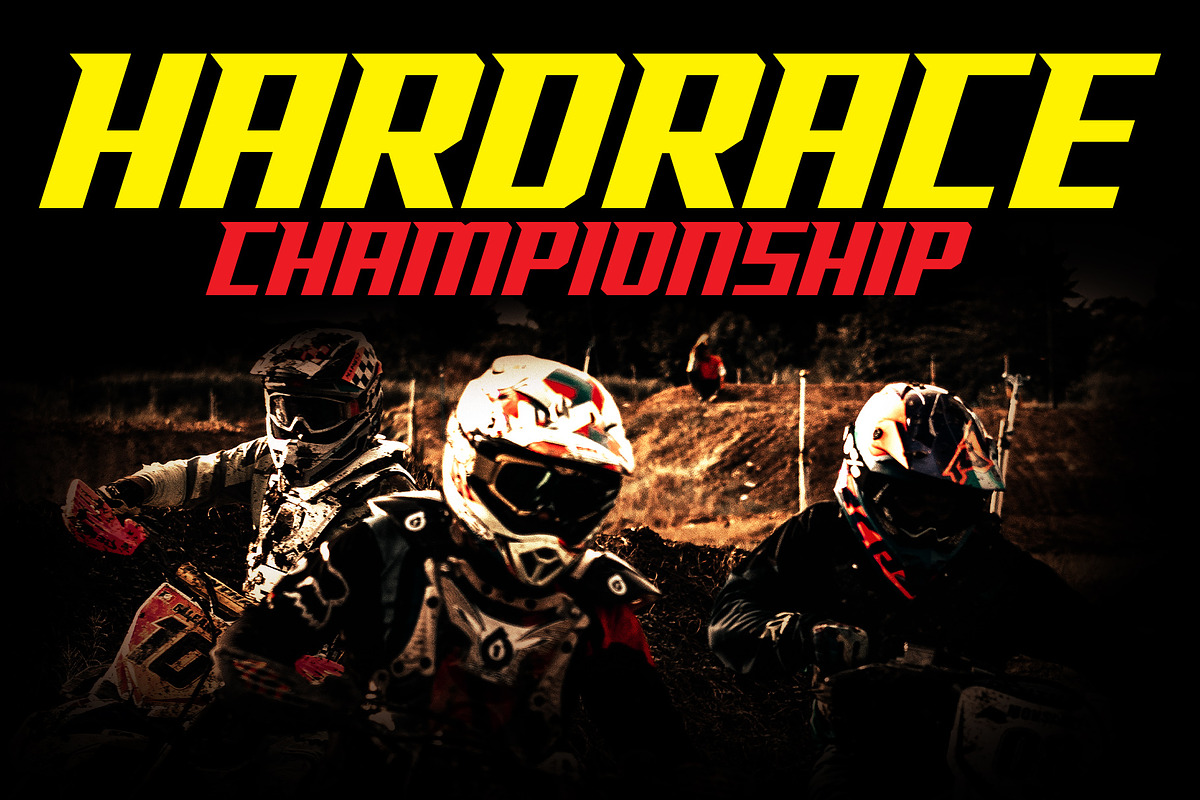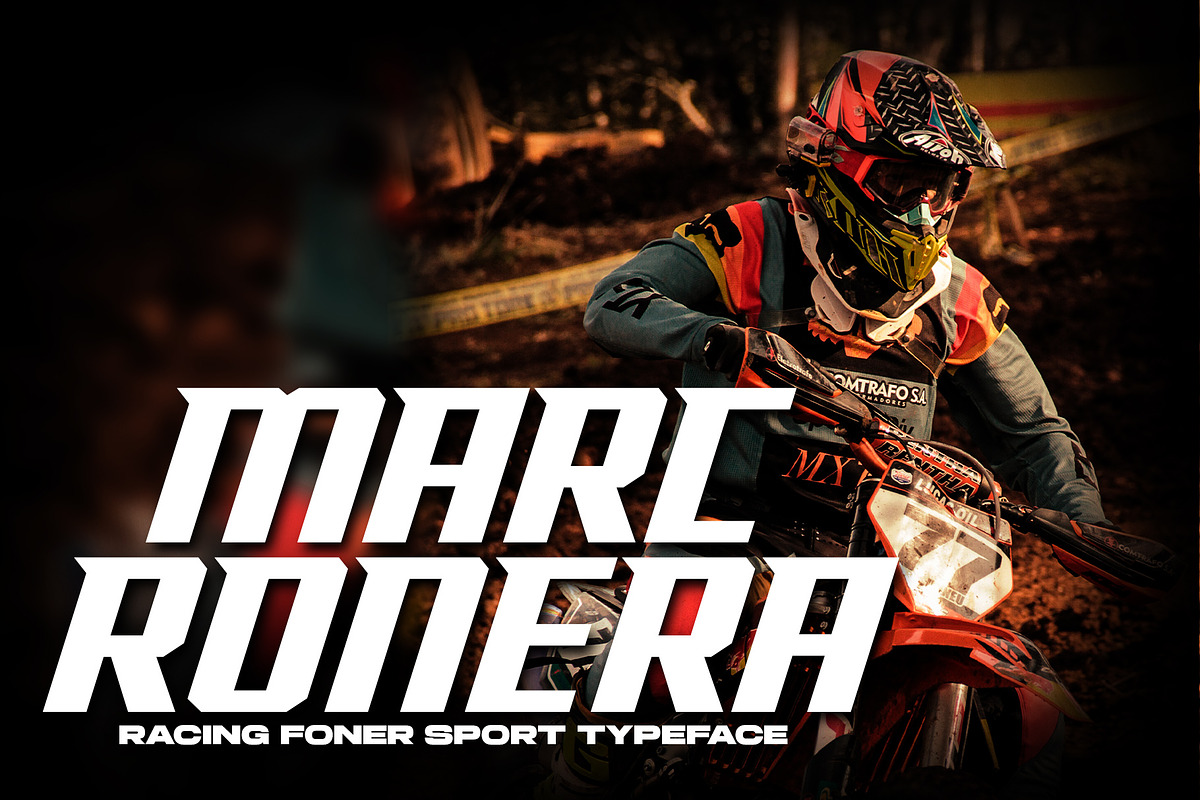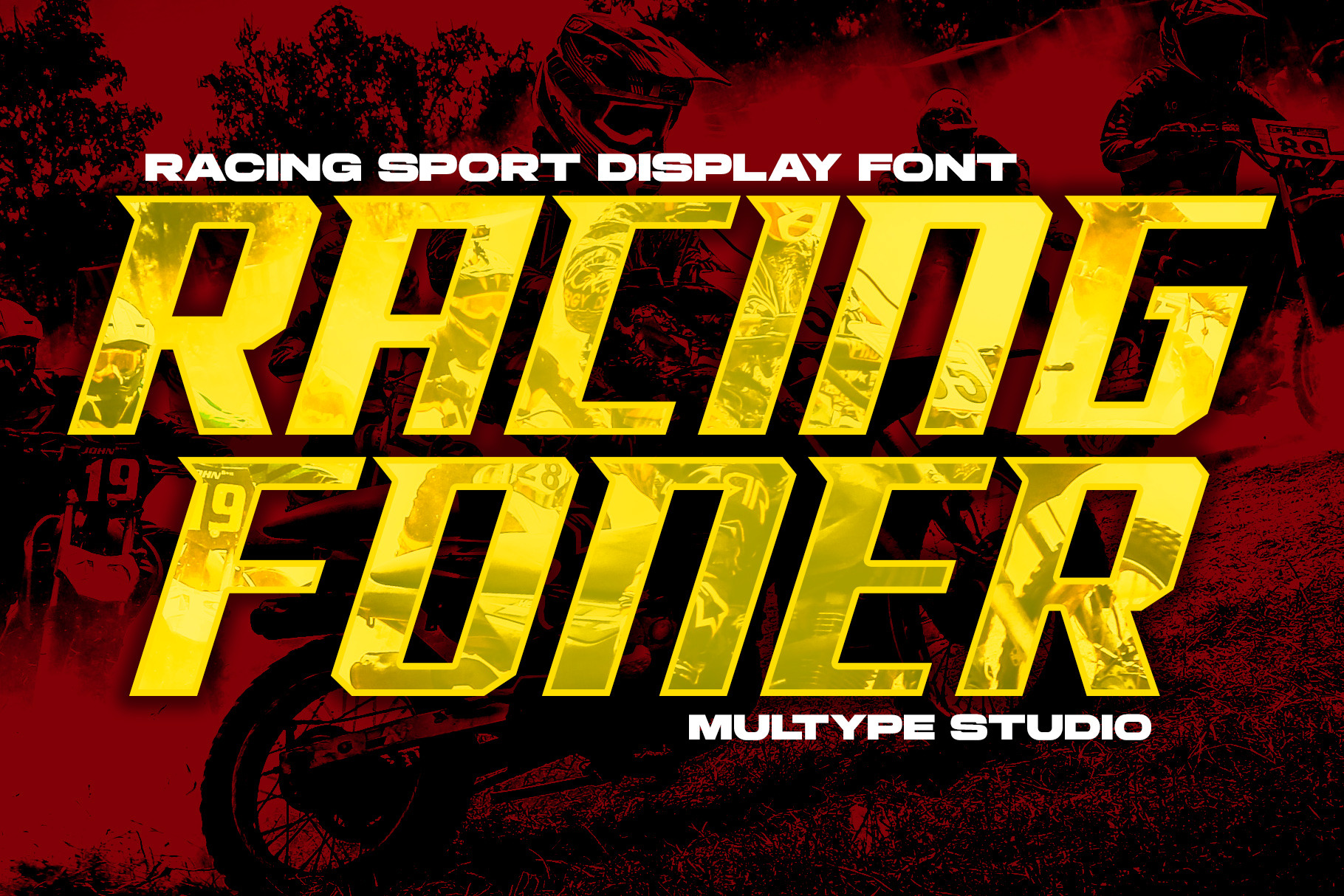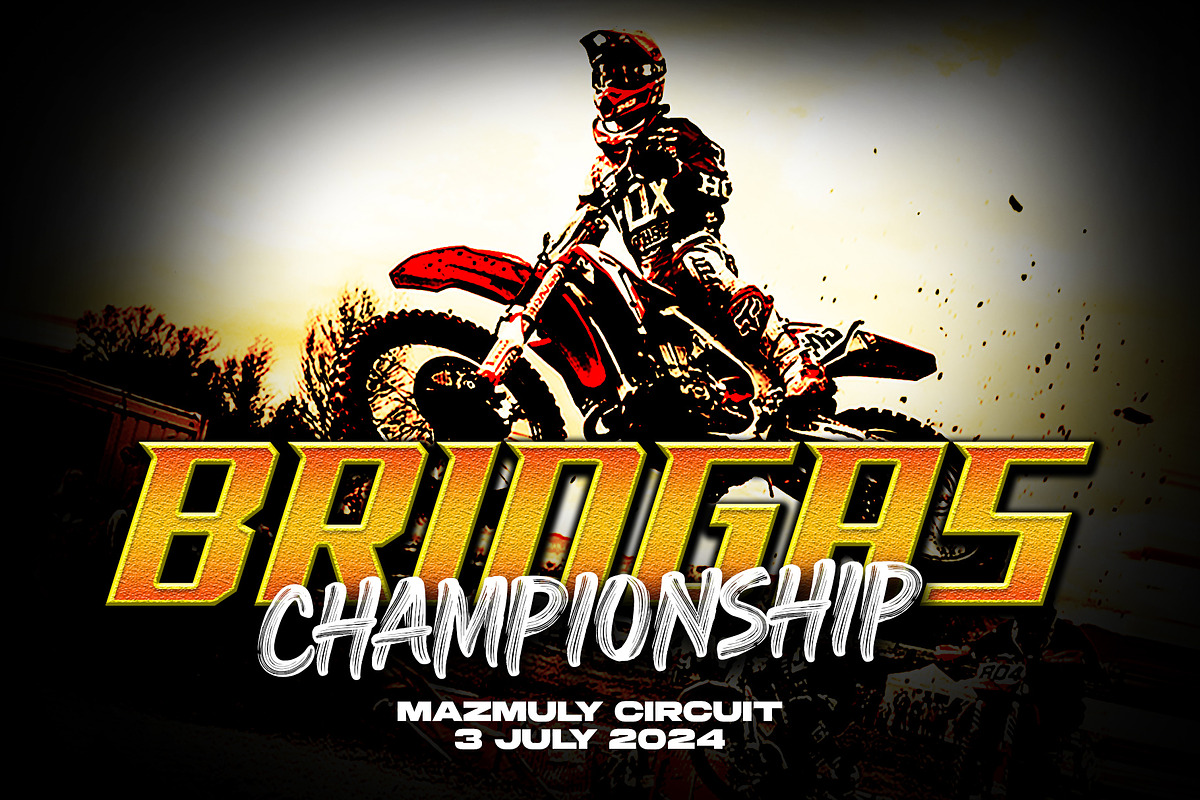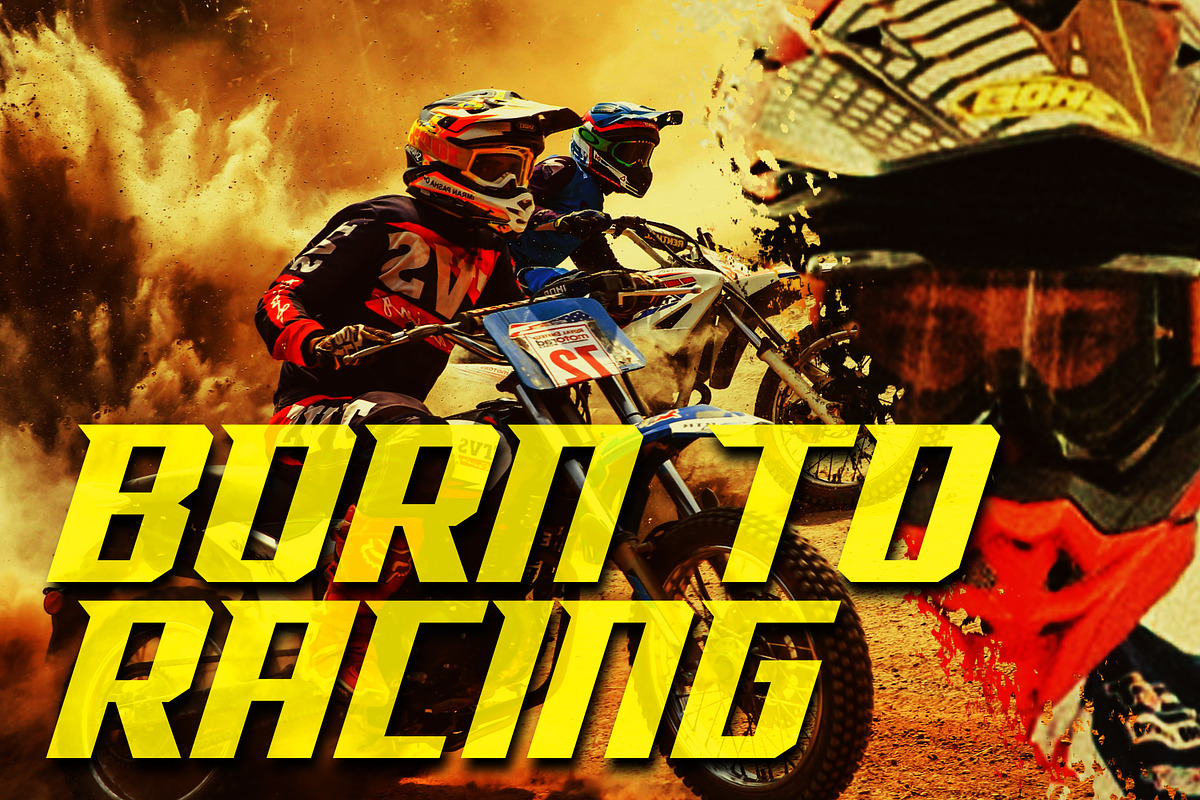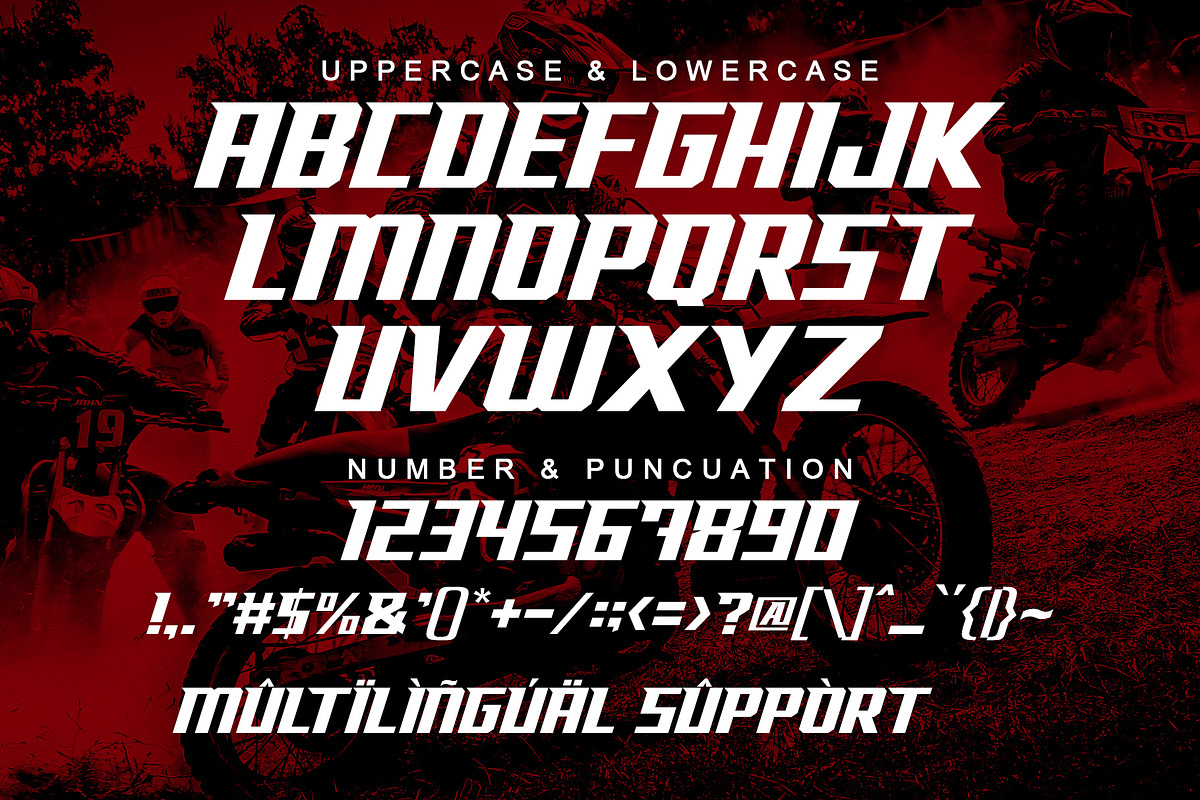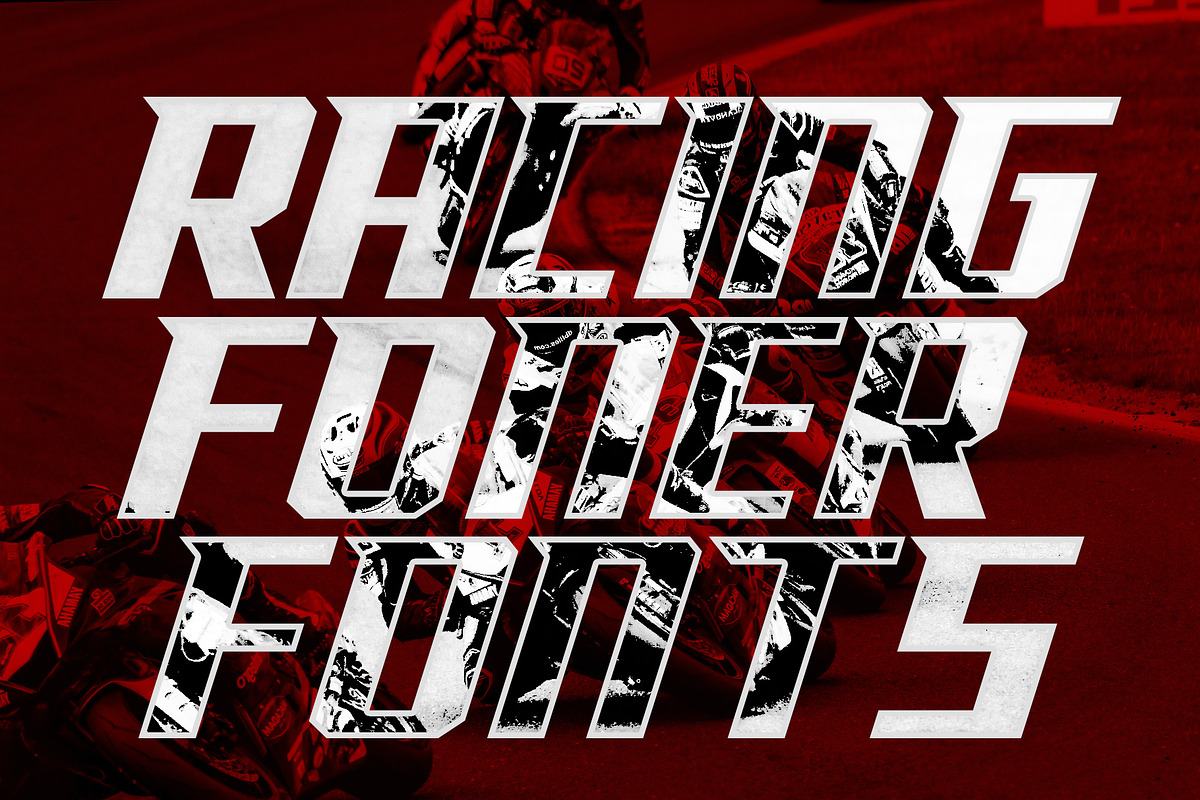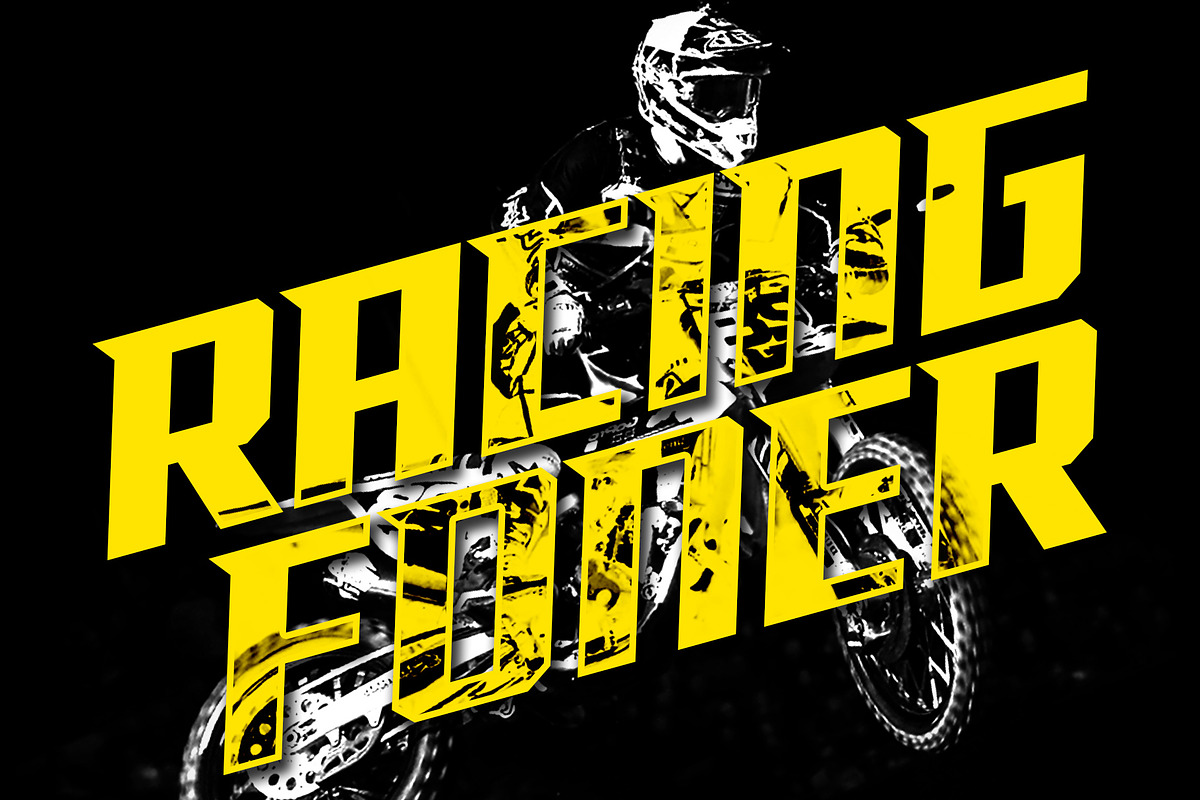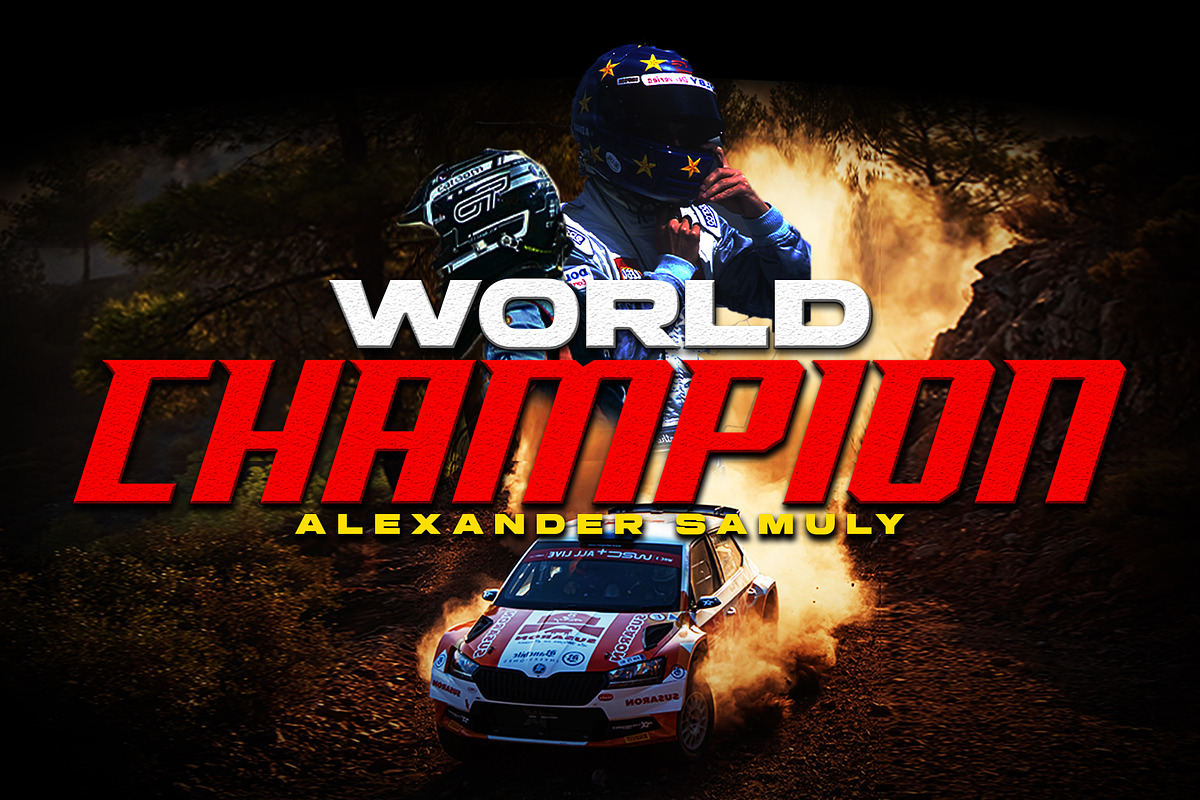
Racing Foner Regular Font Series
Racing Foner is a racing sport display font. A strong, bold and unique style instantly gives your design power and uniqueness. This font perfect font for sport or racing themed projects, such as logo, poster, games, product design and much more.